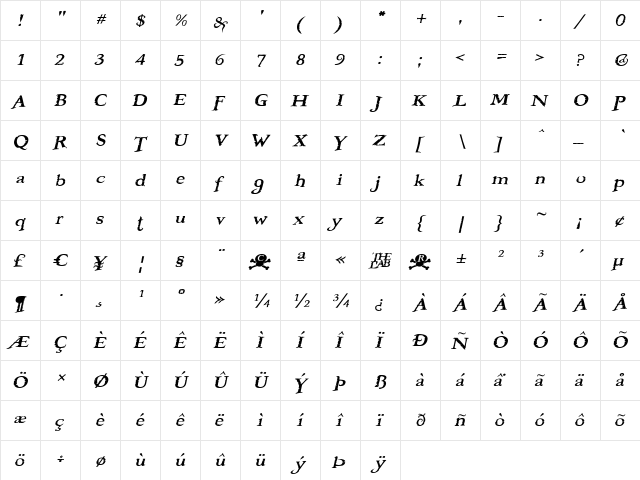
Booter - Five Five Regular Font Preview
Booter - Five Five Regular
Booter - Five Five Regular Font Details
| Designer | Outlines by Graham Meade, space geometry by Apostrophe ('). |
Design Context for Booter - Five Five Typeface
Booter - Five Five is a composed and adaptable typeface that performs quietly and consistently across a wide range of design contexts.